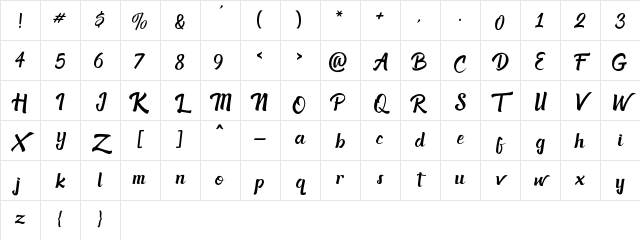
Acknesia is a composed and adaptable typeface that performs quietly and consistently across a wide range of design contexts.
Pro Tip: Use Acknesia in both headline and body roles to test its range before committing to a single application.